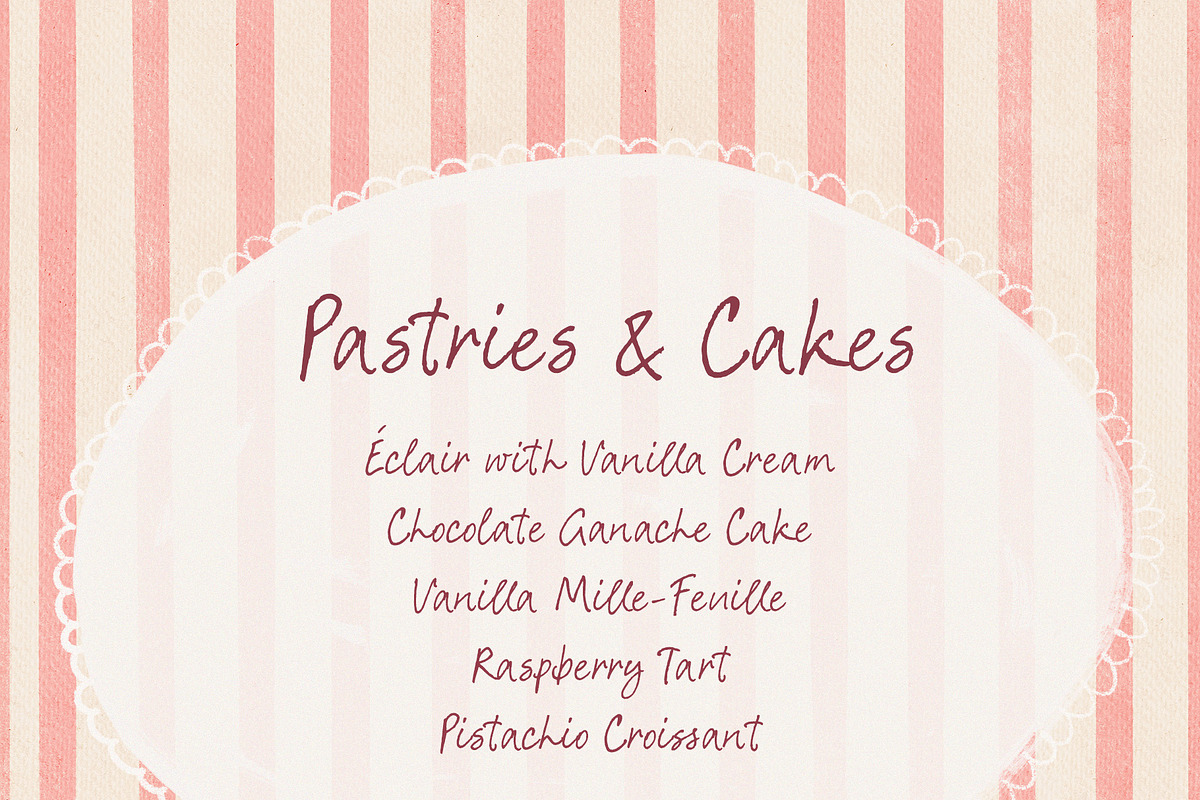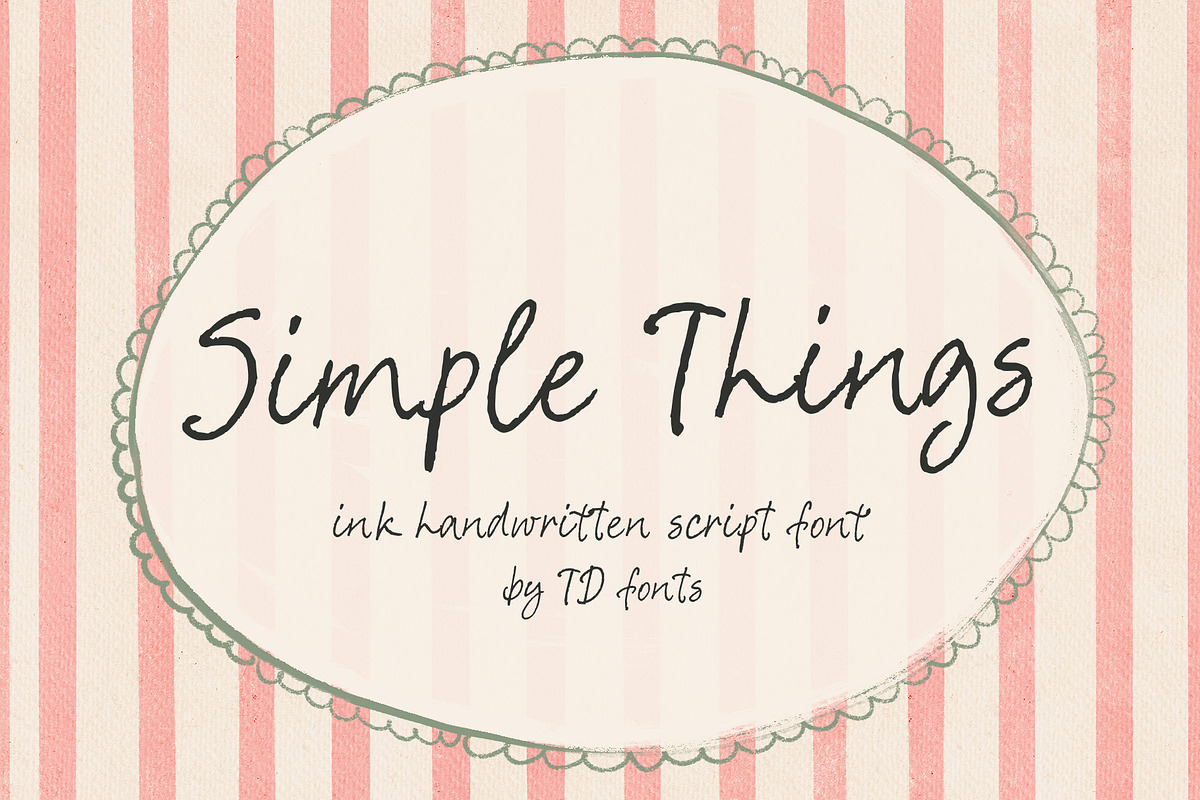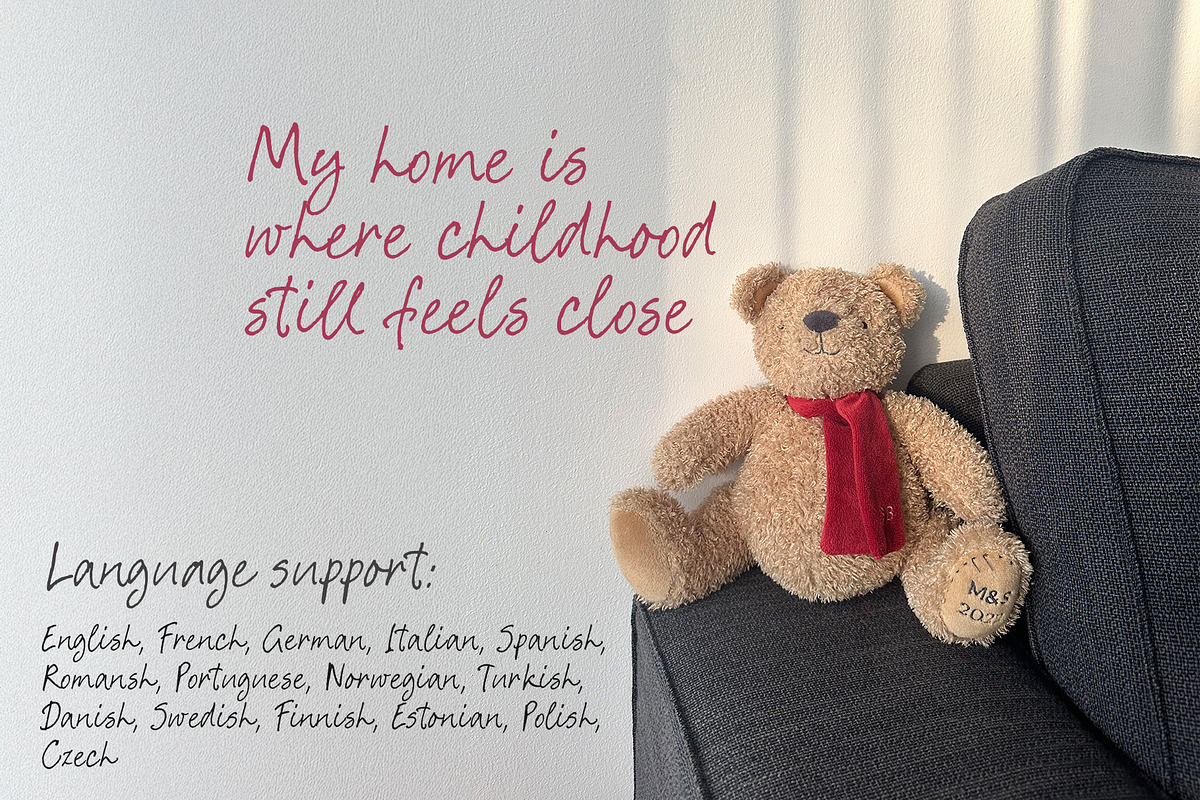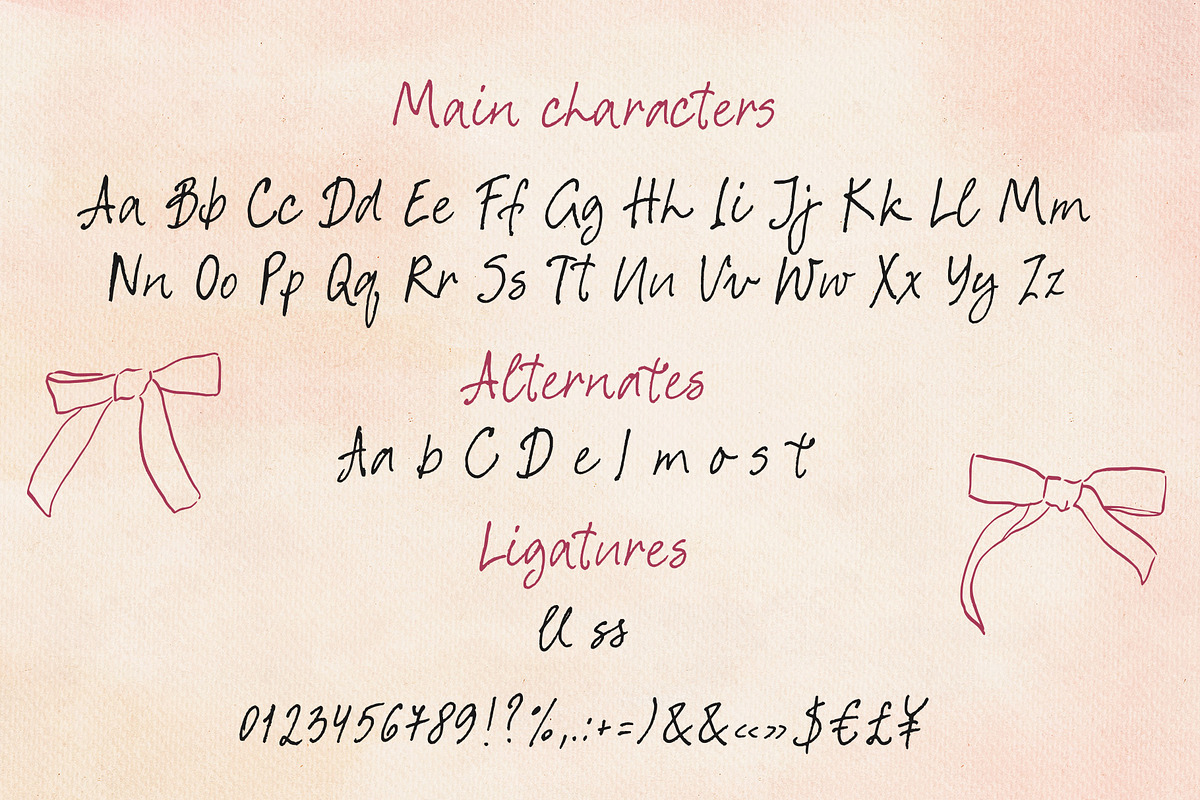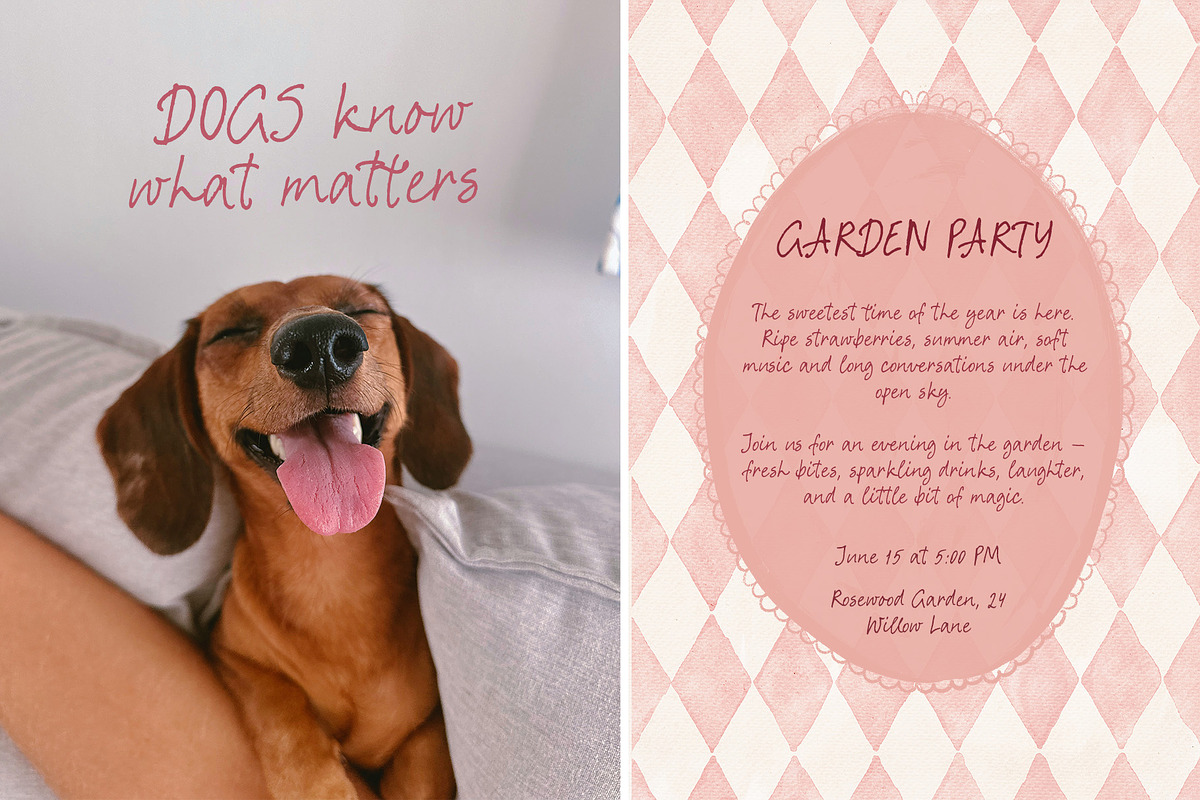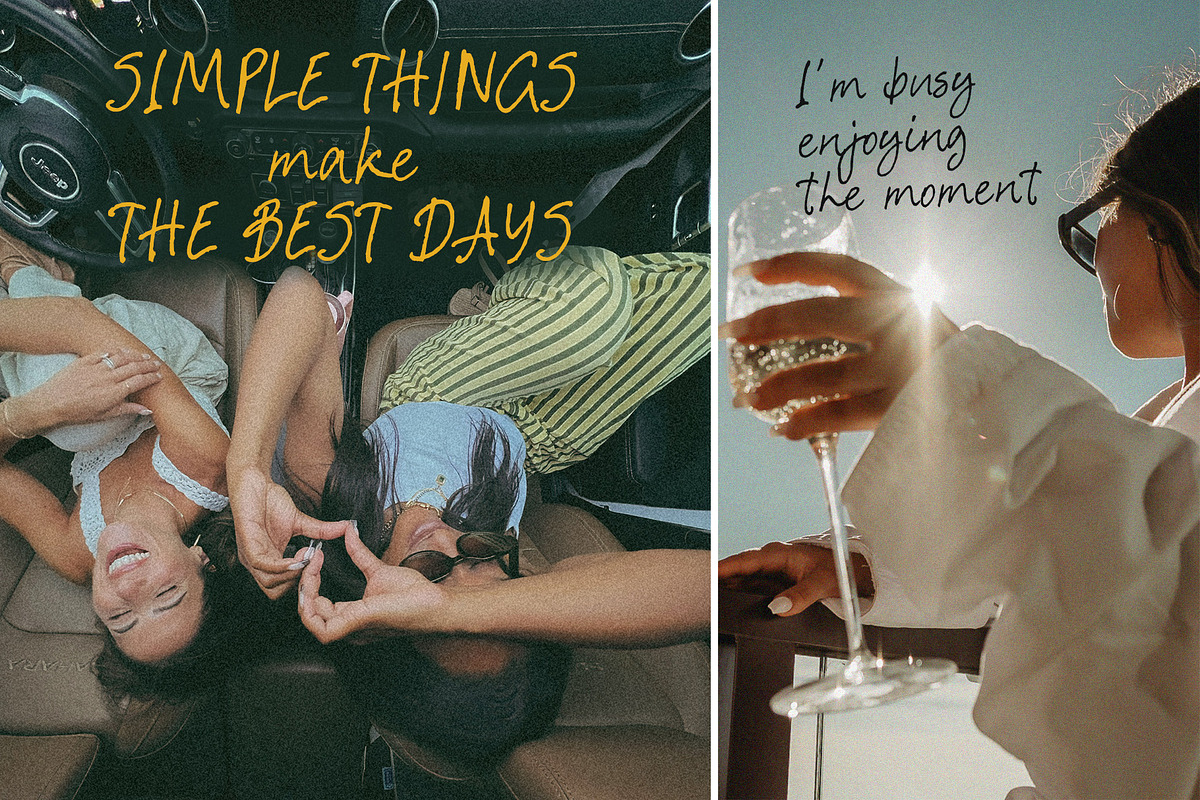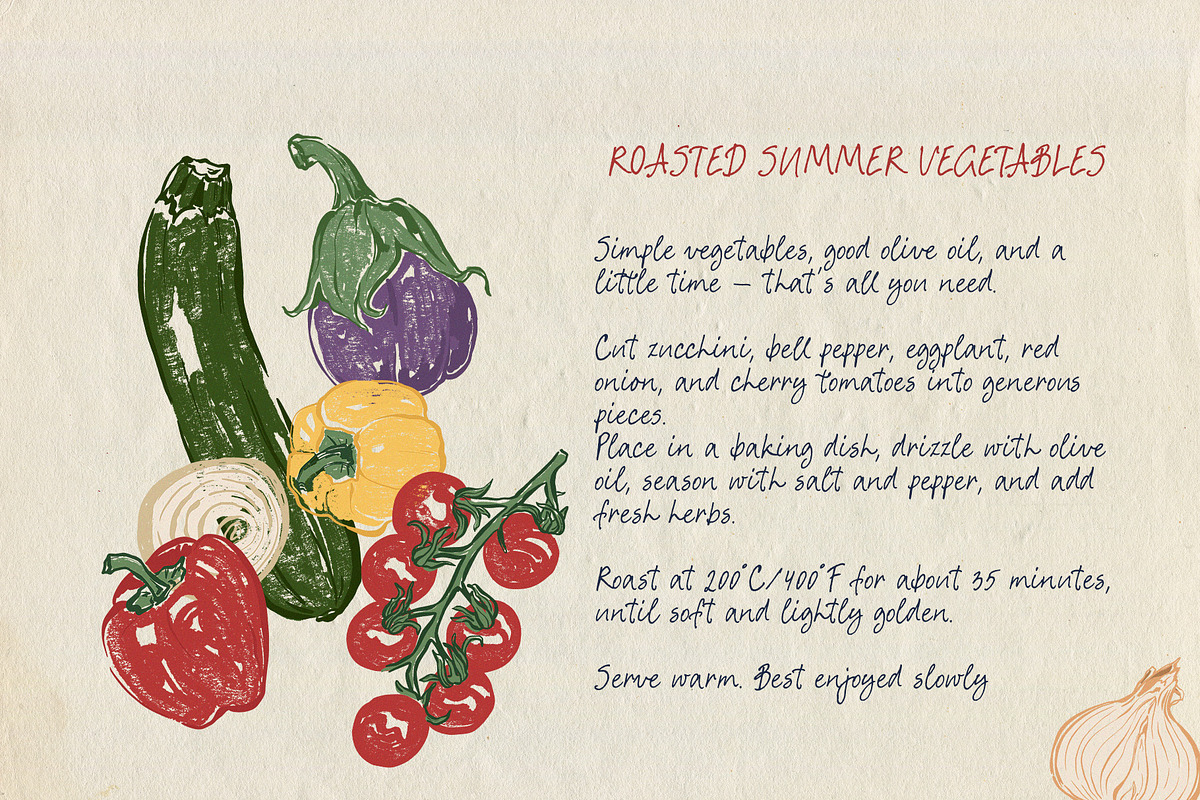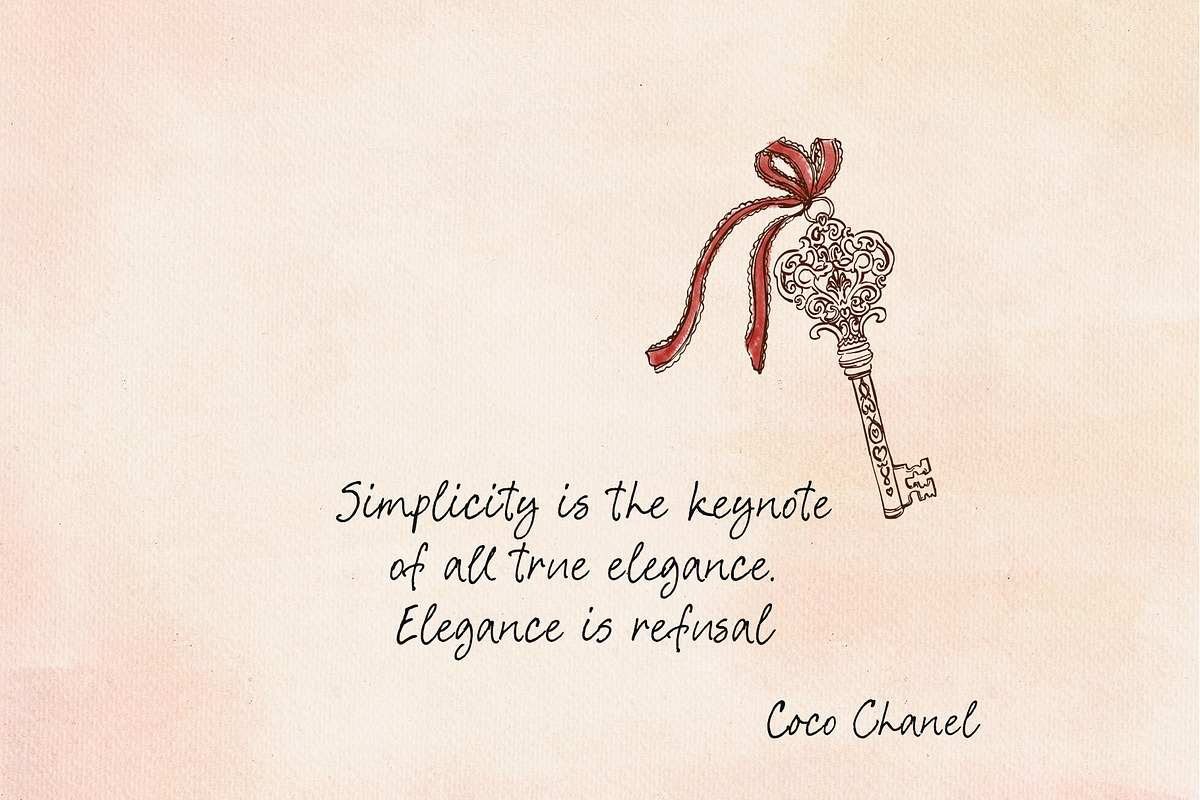
Pen Ink Script font Simple Things
Simple Things is a pen-ink handwritten script font with organic imperfect handwriting letters, a textured surface, and a calm, human warmth. Written by hand with a pointed pen on paper, it captures the beauty of spontaneous lettering — honest, expressive, and quietly full of feeling.
Simple Things was born from that moment when you write without overthinking. When your hand moves faster than your thoughts, when the lines are not perfect but alive with sincerity, and when the result feels more emotional because of its imperfections. The texture of the letters carries the natural spread of ink on paper, giving the font a raw, tactile character that feels deeply real.
This is a thin, organic script with a slight contrast between strokes, a natural rhythm, and a slightly jumping baseline that gives every word movement and personality. It feels whimsical in the most subtle way — not playful in a loud sense, but soft, light, and a little poetic. The overall effect is warm and sincere, with the kind of irregularity that makes handwriting feel human.
Simple Things is designed for projects where the hand-drawn touch matters most — where you want typography to feel emotional, imperfect, and close to the reader. It brings a sense of quiet joy and everyday beauty to branding, websites, greeting cards, birthday designs, invitations, quotes, original prints, posters, social media visuals, wedding stationery, packaging, and more.
Font features:
Handwritten script with a pointed pen look and natural ink texture
Organic, slightly imperfect lettering with a human, emotional feel
Thin strokes with subtle contrast for a light and elegant appearance
Slightly jumping baseline for a natural handwritten rhythm
Whimsical, cozy character without losing clarity or style
Alternate characters for more expressive and personal lettering
The aesthetic: Simple Things is a font for those moments when simplicity says more than perfection ever could. It feels intimate, sincere, and quietly expressive — like a handwritten note that keeps its beauty precisely because it was not polished too much.